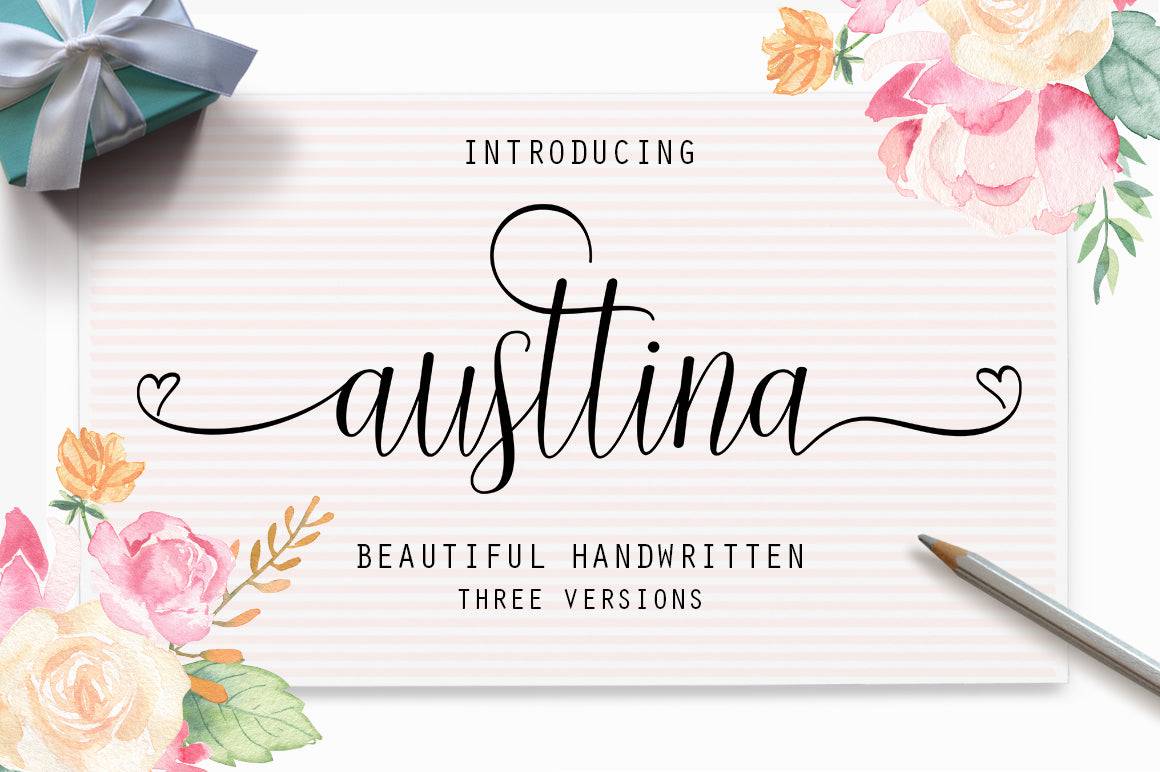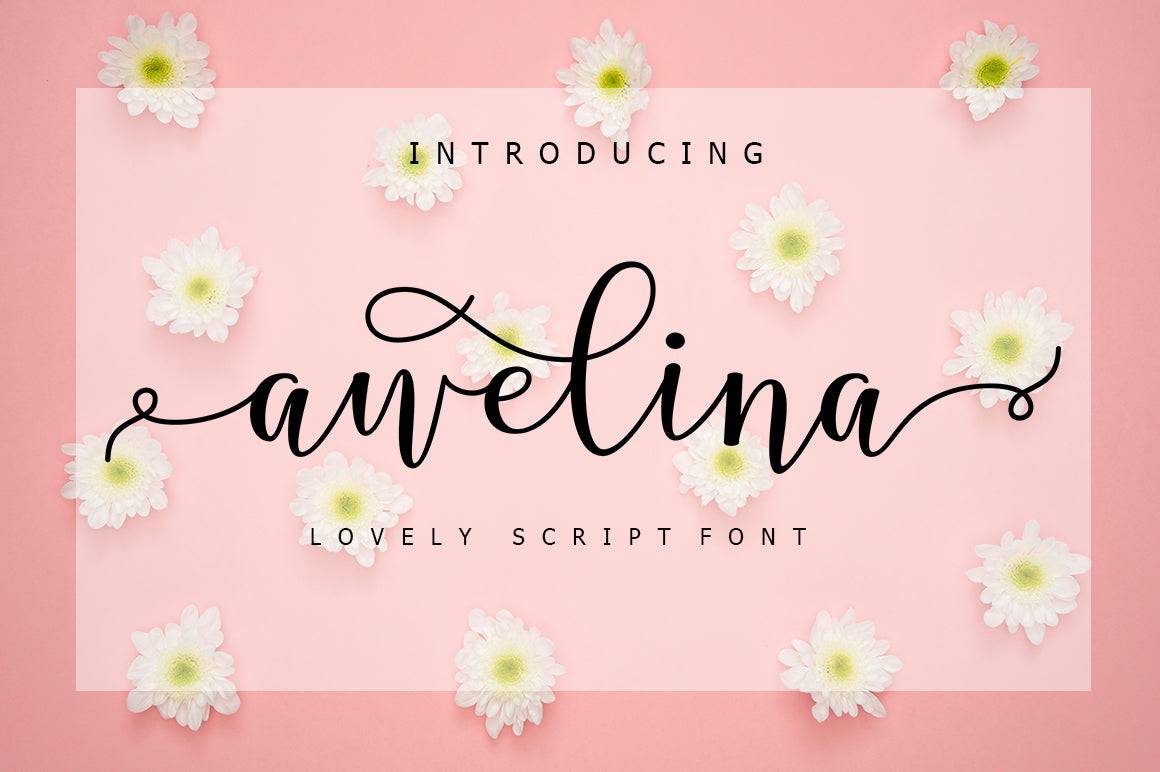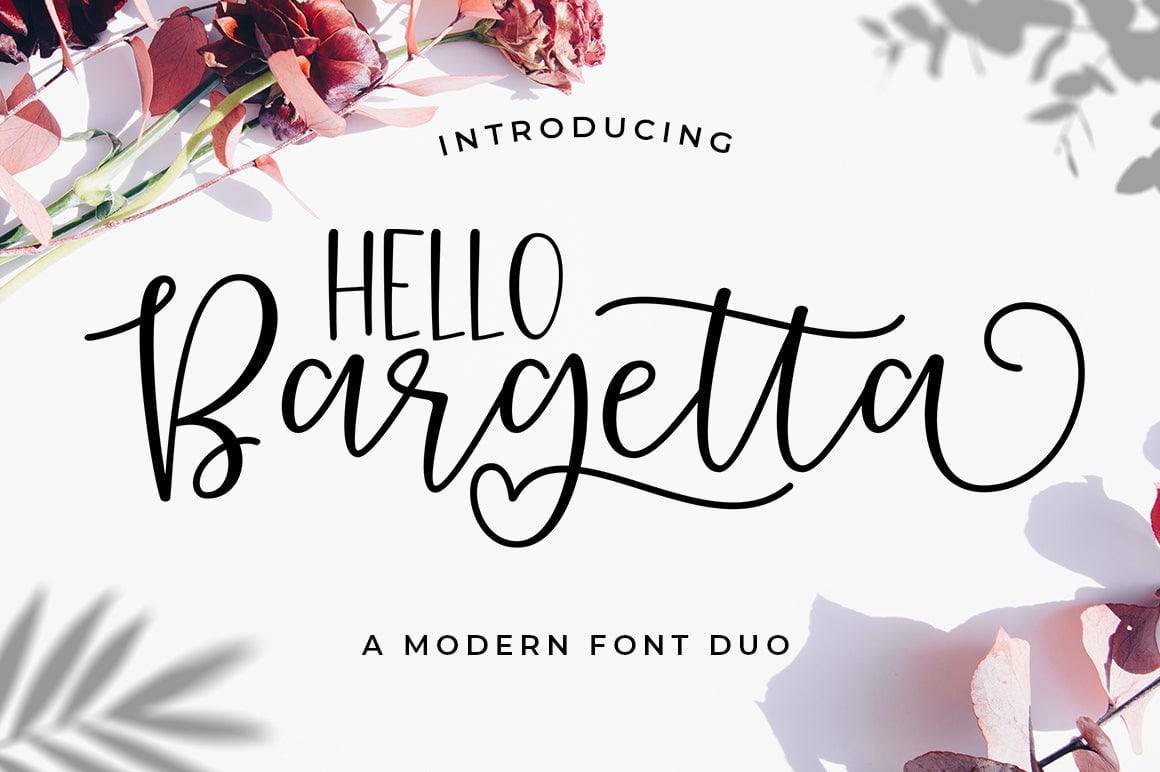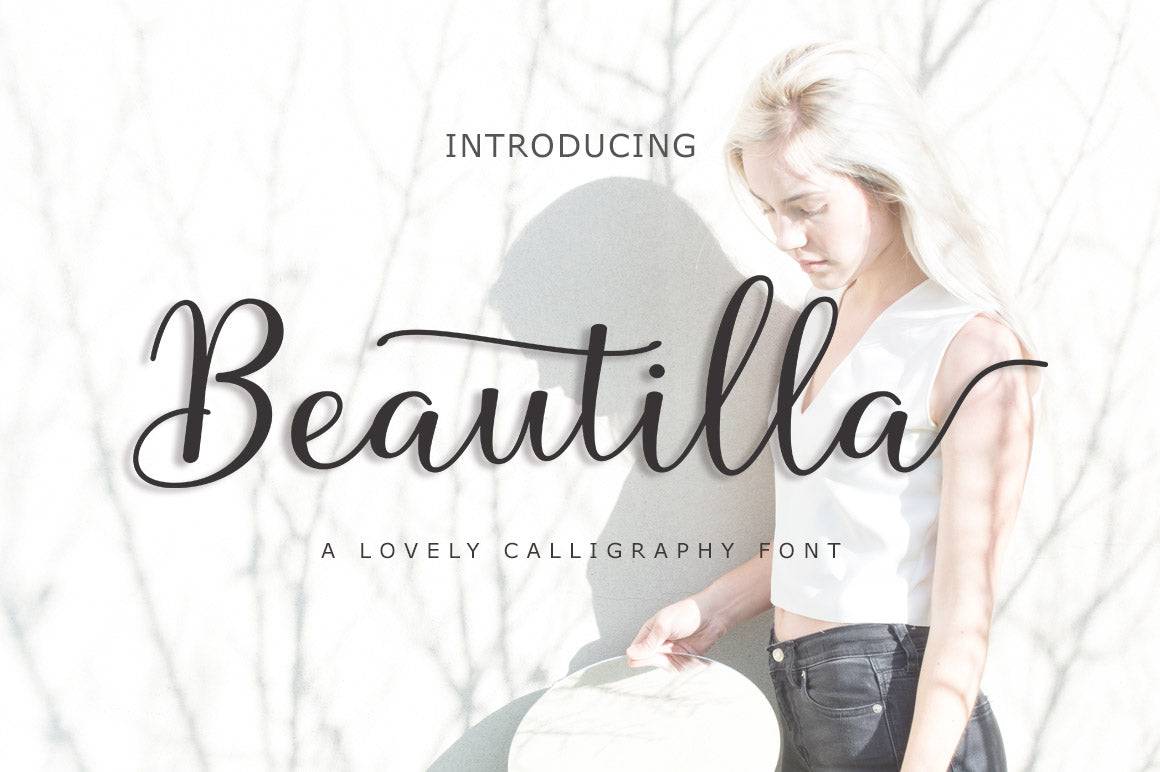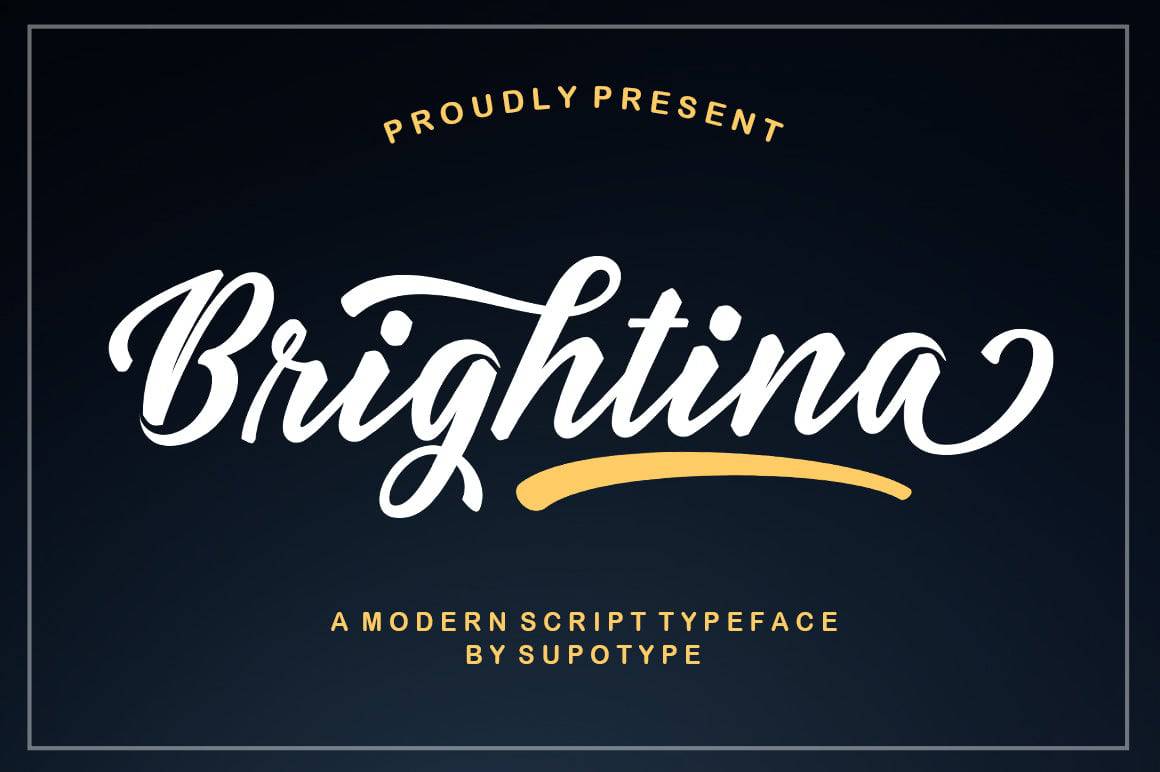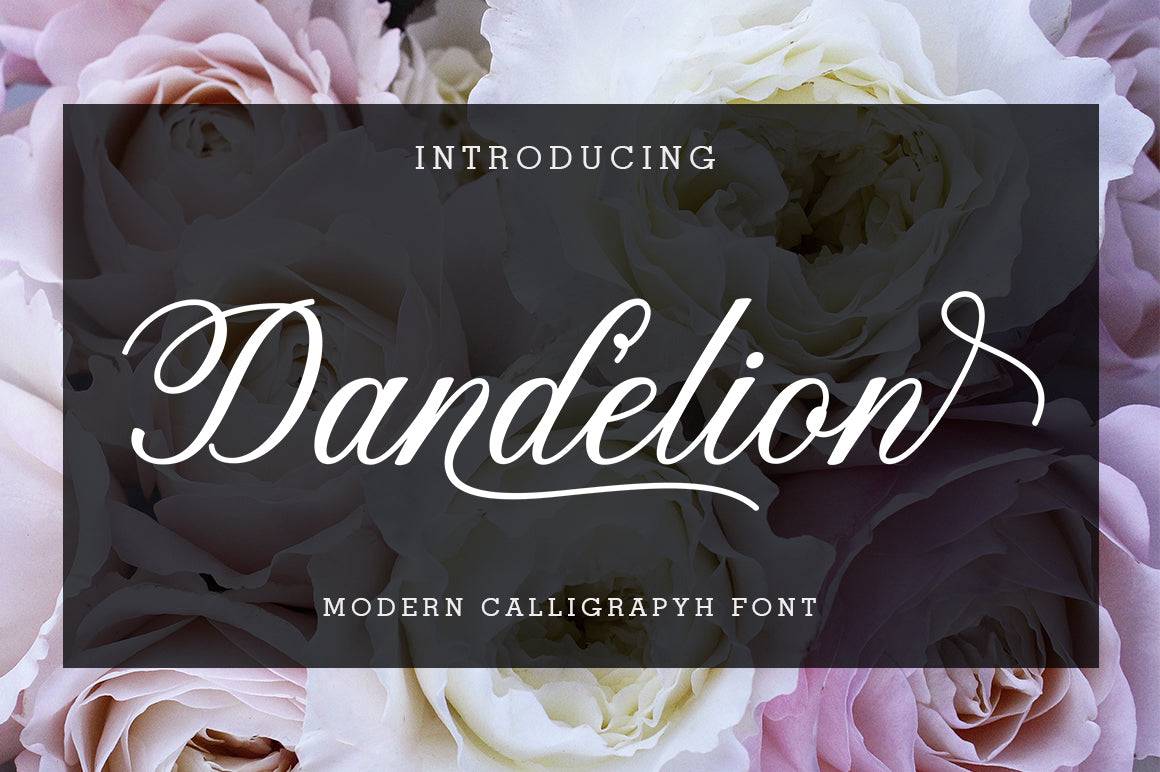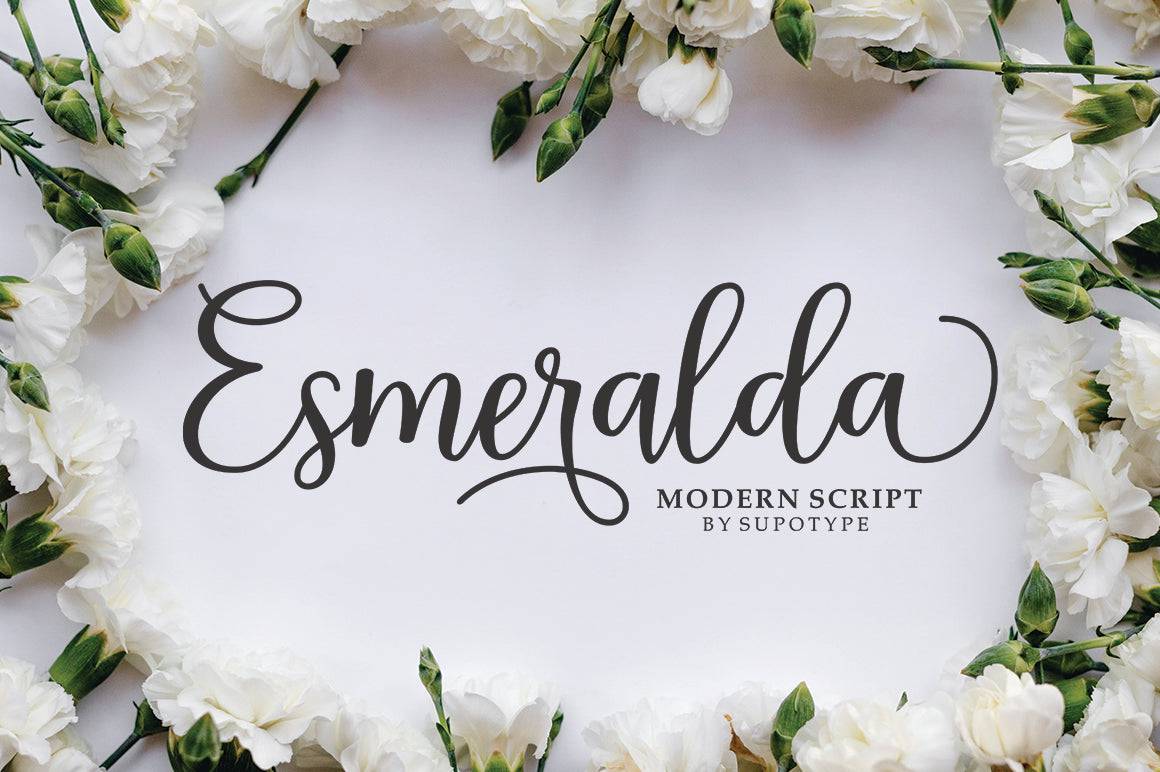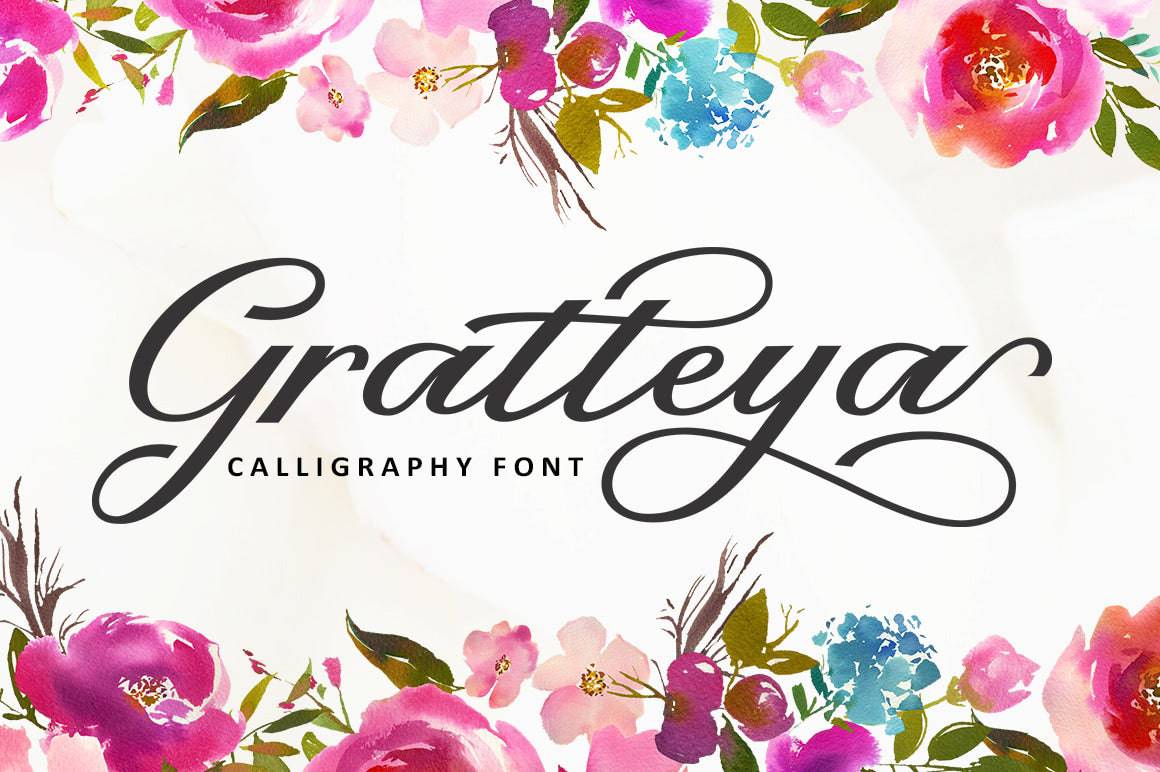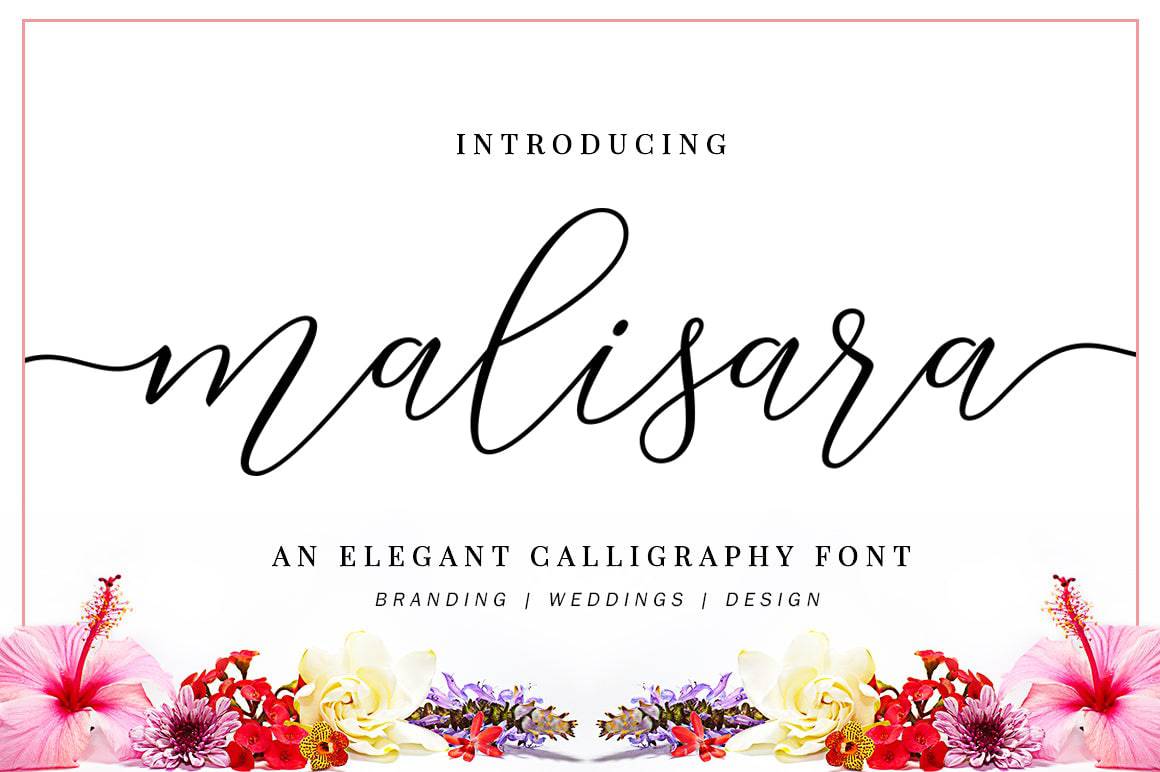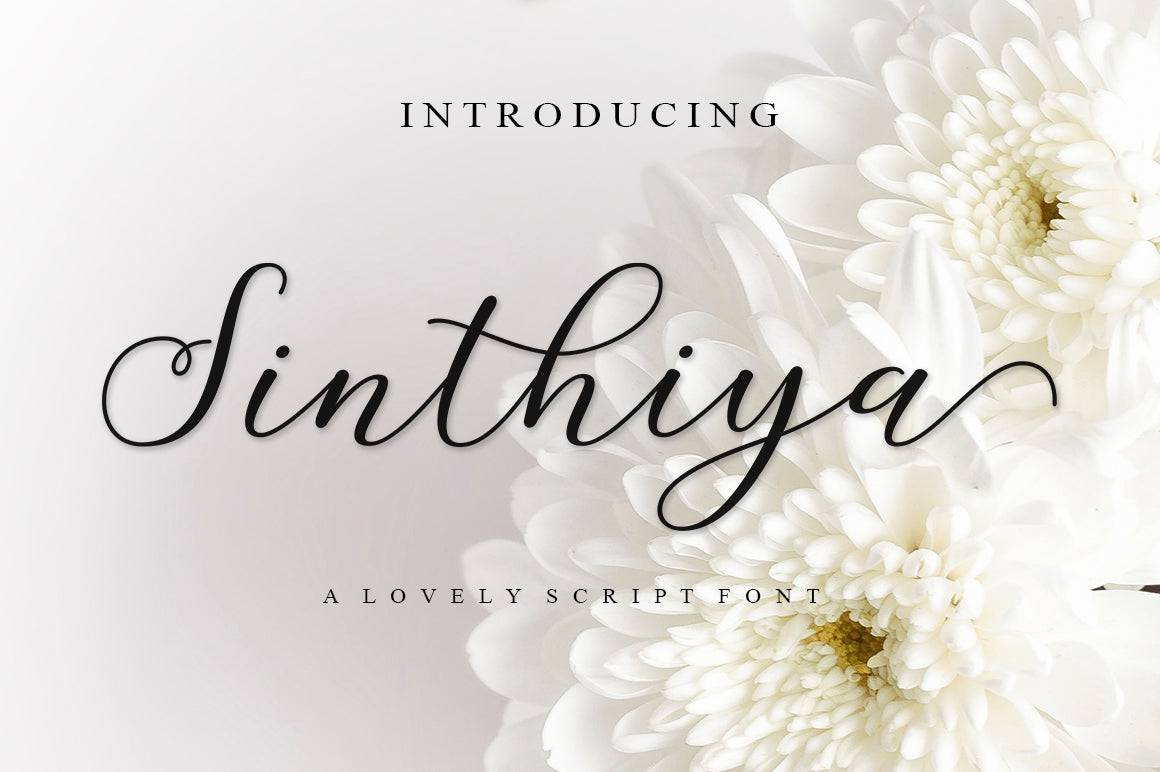
Gorgeous Calligraphy Fonts Bundle
This set features 13 modern calligraphy fonts which are perfect for creating wedding invitations, signatures, letterheads, logos, T-shirts and everything in between.
With loads of OpenType features available, you can mix and match styles to create the perfect masterpiece.
Highlights:
• Add an even dozen professional fonts to your typeface toolbox in one shot!
• All 13 script fonts offer a gentle and soft touch to give the perfect feel to your latest project.
• Any of these gorgeous typefaces are a fabulous choice for putting together everything from wedding invitations to logos.
• Take advantage of all sorts of amazing OpenType features such as alternates, ligatures, swashes and more!
13 Fonts Included In The Bundle:
• Austtina Script
• Awelina Script
• Esmeralda Script
• Beautilla Script
• Miadiena Script
• Pruistine Script
• Sthephen Signature
• Sinthiya Script
• Brightina Script
• Bargetta Script
• Dandelion Script
• Malisara Script
• Gratteya Script